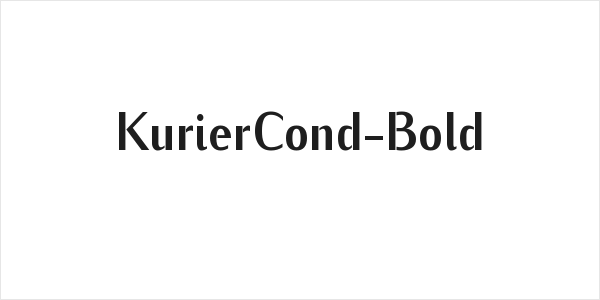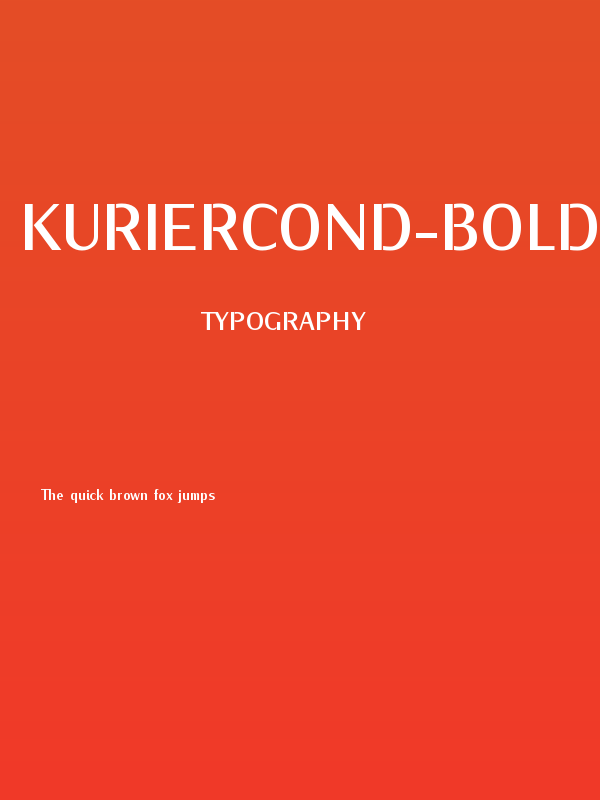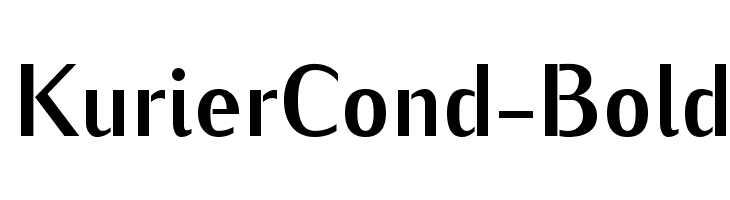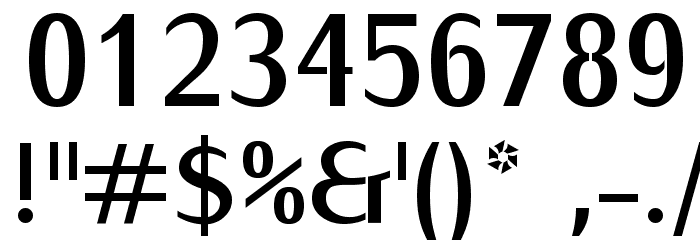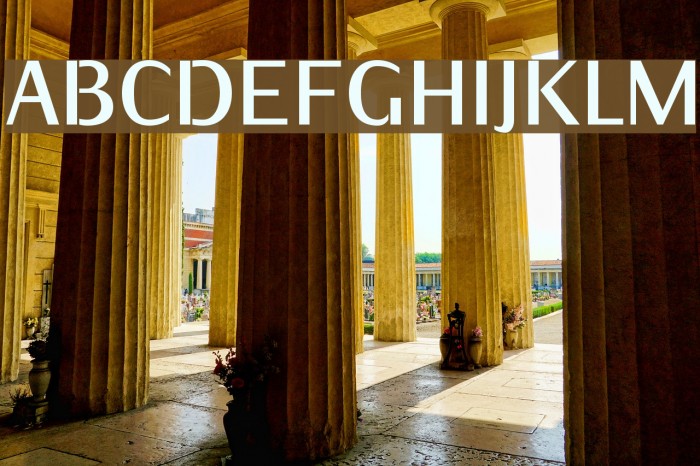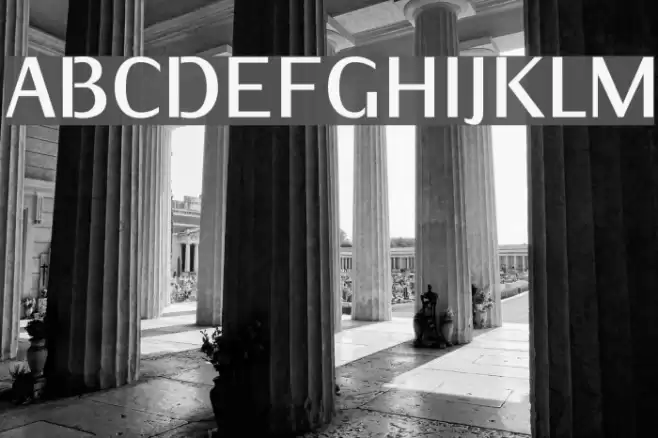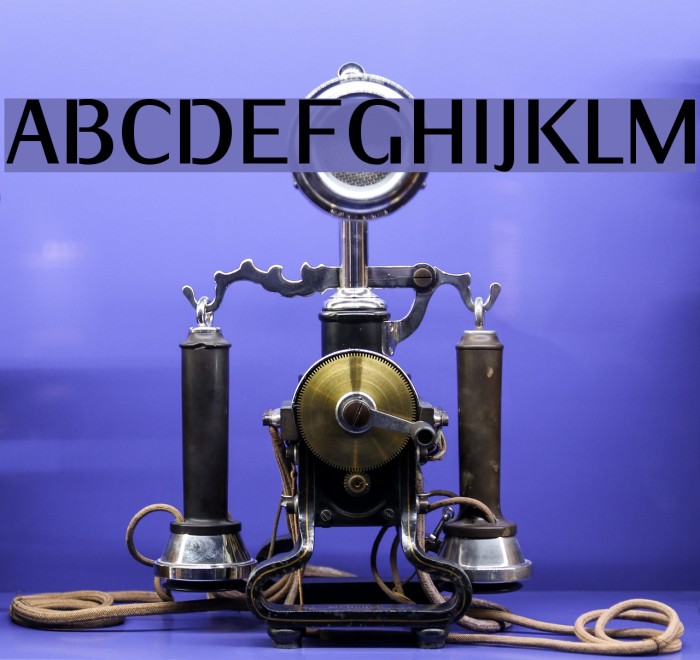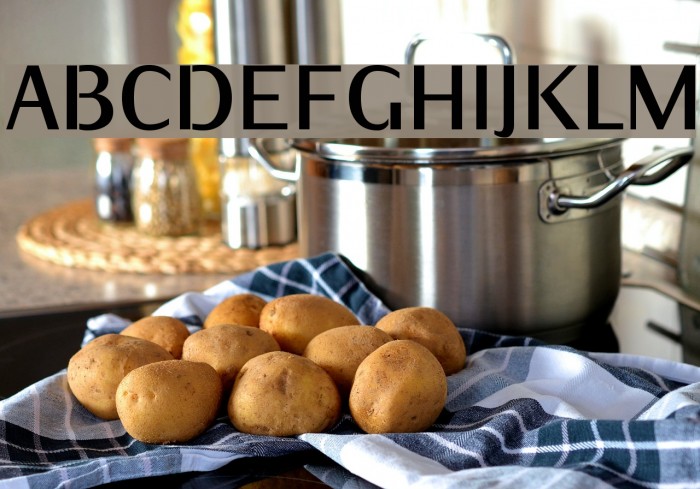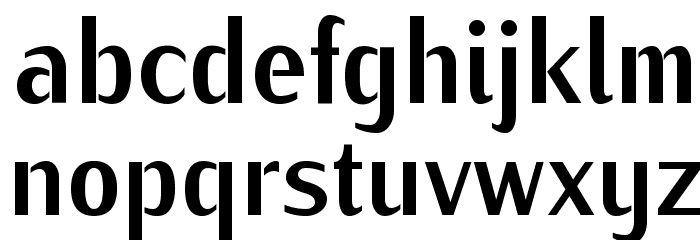
KurierCond-Bold Font
KurierCond-Bold Description
This typeface features a bold and condensed style, characterized by clean, sharp lines and a modern aesthetic. The uppercase letters are strong and impactful, while the lowercase letters maintain a consistent weight, ensuring readability. The numerals are clear and well-defined, making them suitable for various applications. Special characters are distinct and align well with the overall design, providing versatility. The font's condensed nature allows for efficient use of space, making it ideal for headlines and titles where impact is essential.
| Proposed Projects | Ideal for headlines, posters, branding materials, and any project requiring a strong visual impact. |